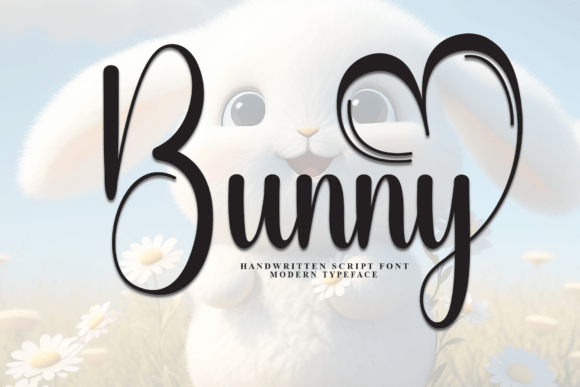
The Bunny Font: A Stylish Handwritten Script to Elevate Your Designs
I’ll never forget the time I was working on a wedding invitation project, and my client asked for a font that was both elegant and playful. I scoured the internet, tried out countless fonts, but nothing seemed quite right. That was until I stumbled upon the Bunny font. With its flowing curves and natural rhythm, it added a personal, charming touch to the invitation that perfectly captured the couple’s personality. In this article, I’ll share my love for the Bunny font, its features, and how to make the most of it in your designs.
An Honest Review of Bunny Font
What I Love About Bunny Font ✨
• 💫 Elegant and playful at the same time – perfect for a wide range of projects
• ✅ Flowing curves and natural rhythm that add a personal touch
• 🎨 Highly versatile and works well for invitations, branding, social media, and more
• 📚 Supports OpenType features, glyphs, and stylistic alternates for added creativity
While I adore the Bunny font, there are a few things to keep in mind:
• 🤔 Some characters may require manual kerning for optimal spacing
• ⚠️ May not be suitable for very large or very small font sizes due to its handwritten nature
The Designer Inspiration Behind Bunny Font
The Bunny font was designed with the intention of capturing the elegance and playfulness of handwritten scripts. Its creator wanted to craft a font that would add a personal touch to any project, while still maintaining a level of sophistication. The result is a font that’s perfect for invitations, branding, social media, and more.
Font Name Bunny Font
Q: Is the Bunny font suitable for body text?
A: While the Bunny font is beautiful, it’s best suited for headlines, titles, and short paragraphs. Its handwritten nature may make it difficult to read in large blocks of text.